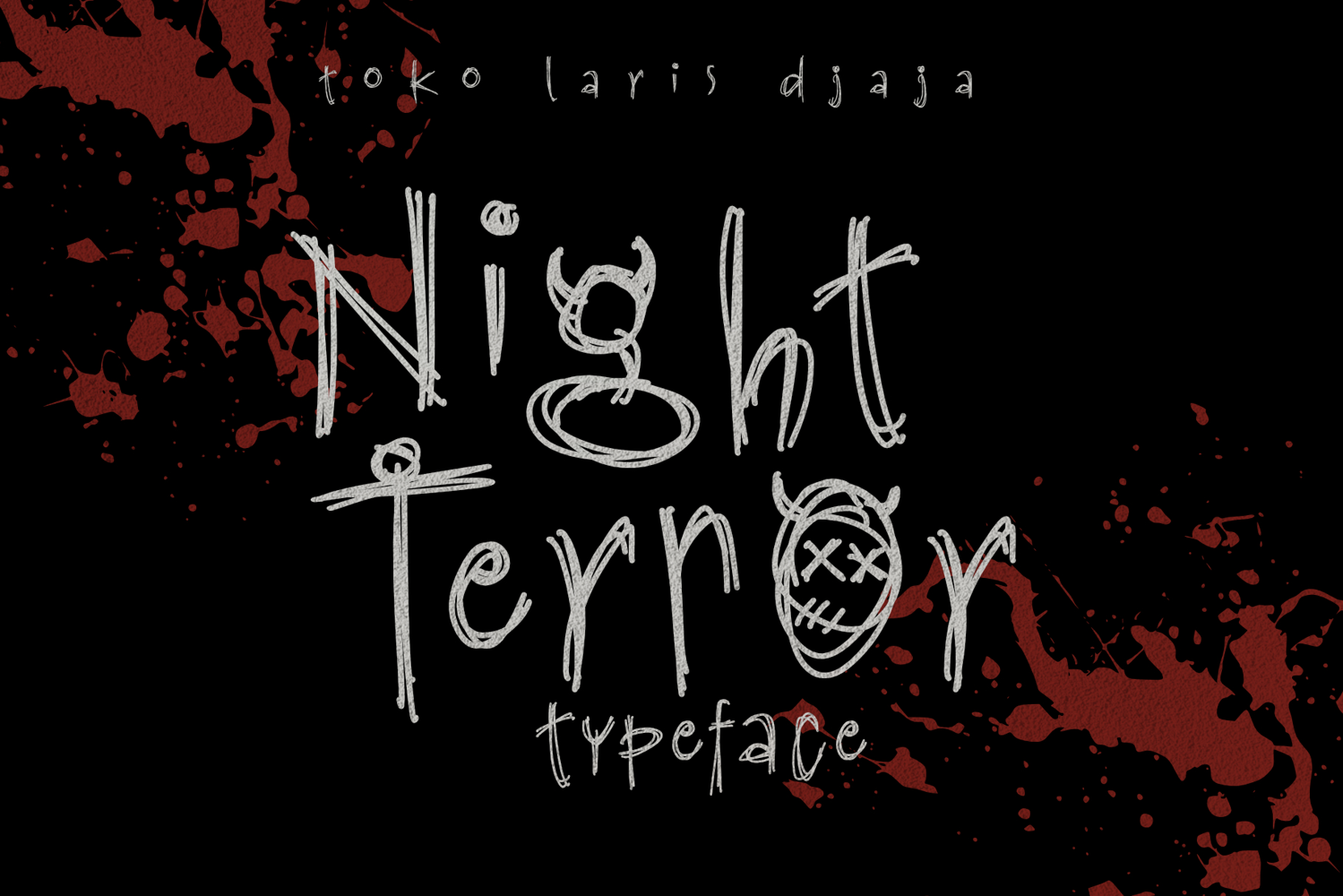
Night Terror Creepy Handwritten Horror Font
Night Terror
Looking for the perfect font to give your design a spooky, raw, and terrifying vibe?
Meet Night Terror, a creepy handwritten horror font that looks like it’s been scratched straight out of a nightmare.
This font combines hand-drawn messy strokes and scary handwritten style, making it perfect for:
• Halloween Party Invitations
• Horror Movie Posters
• Creepy Quotes & T-Shirts
• Haunted House Flyers
• Dark Branding & Logos
• Album Covers & Merch
Every letter looks like it’s been scribbled in panic, giving your design a realistic scary handwritten effect. With uppercase, lowercase, numbers, punctuation, and special characters, you’ll have everything you need to create horror-themed designs that stand out.